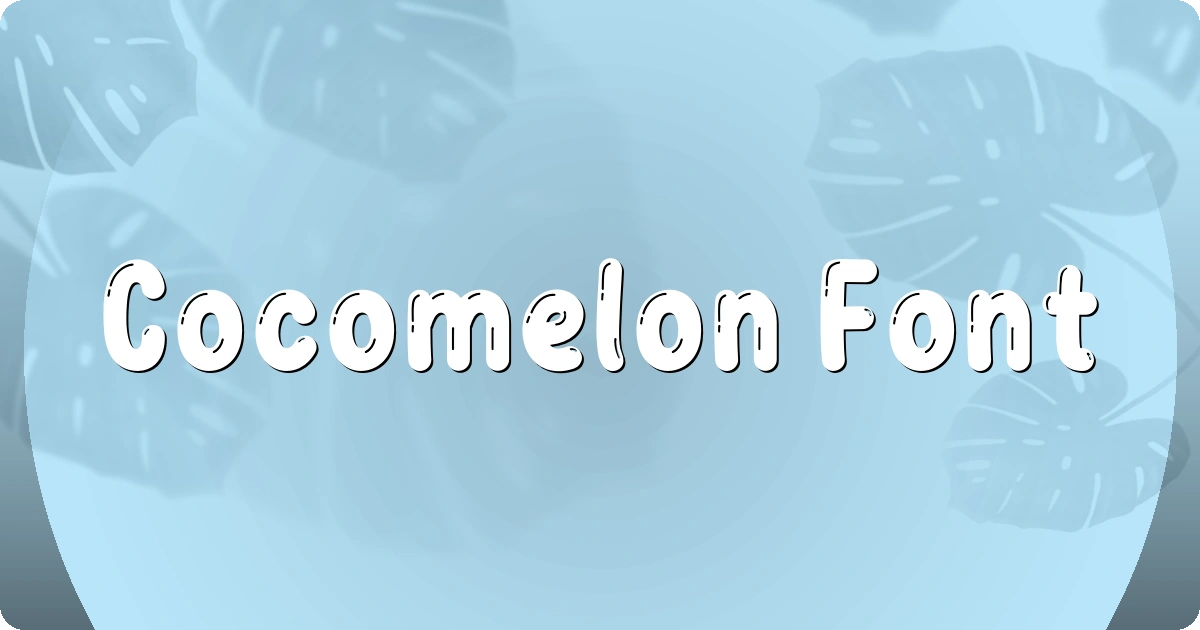
Almarkhatype designed this unique text style that is known as Cocomelon Font which is a display font style. It has capital letters, small punctuation, special characters, glyphs, and numerals 0 to 9 are all available in this font.
Each one differs in appearance and personality. It has the same characteristics as the Zero Font. There are 220 fascinating glyphs and more than a hundred fashionable characters included. You can create this font with a thick texture online by using the generator tool.
Your colorless texture will be transformed into lovely graphics in a second with this free method. This graphic can be copied and pasted wherever you need. The text and display tasks that need for the unique design of this typeface are ideal. It looks amazing and it’s really easy to read. Ginora sans font is a very aesthetic typeface that can easily make a good texture pair with Cocomelon Font.
You can see from a distance that it has a striking and refined style. It is ideal for showcase projects because of this quality. Both large-screen and small-screen productions can make use of it. Every text design and internet project can use perfectly. You may construct webpages and make thumbnails for your YouTube channels.
It is ideal for many different things, including titles, headings for assignments, social media postings, symbols, graphic designs, text, certificates, report cards, and many more.
In addition, it can be utilized in television shows, posters, magazines, T-shirt designs, books, home decor designs, fabric designs, invitation cards, birthday cards, wallpapers, newspapers, flyers, catalogs, banners, layouts, and more.
What text style is Cocomelon Font?
This is a display font with this style your colorless texture will be transformed into lovely graphics in a few seconds.
What text style goes well with Cocomelon Font?
This typeface has open, clean, characters that can create the finest blending with many other typefaces such as I Love Pugs Font.
Is Cocomelon Font a great font?
This typeface is perfect for body content or websites. It is right for any venture such as advertisements, site layouts, social media posts, brands, cards, etc.